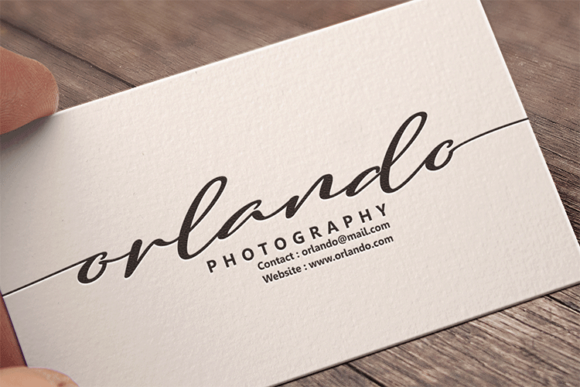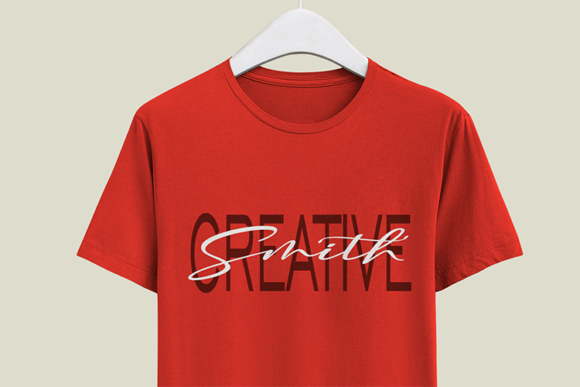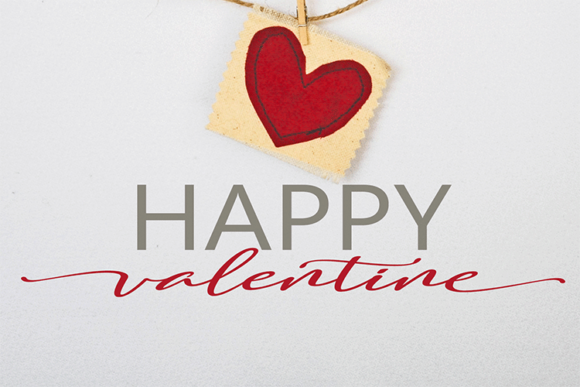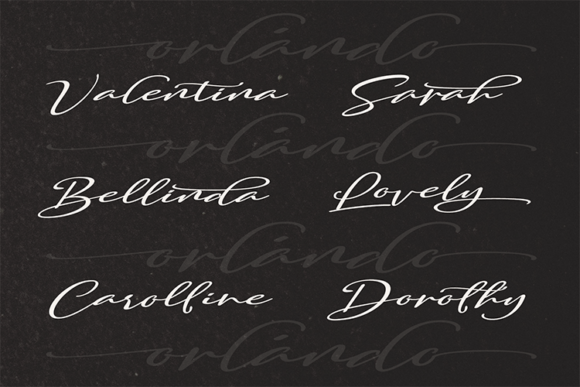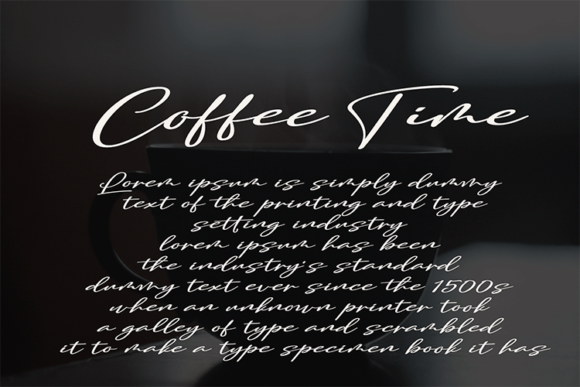
Introduction to Orlando Smith Font
Have you ever been stuck on a creative project, staring blankly at a blank canvas, desperately searching for the perfect design element to bring it to life? For designers, this moment of uncertainty is all too familiar. But what if you could add a touch of elegance and sophistication to your work with just one click? Enter the Orlando Smith Font, a luxurious script font that’s sure to elevate your designs and leave a lasting impression.
As a valuable resource for designers, the Orlando Smith Font is a game-changer for those looking to add a high-quality, unique touch to their work. With its classic style and friendly feel, this font is perfect for a wide range of creative projects, from wedding invitations to business logos. And the best part? It’s available for free download, making it an accessible design resource for designers of all levels.
- Features a unique blend of modern and vintage elements, setting it apart from other fonts in its class.
- Perfect for use in digital and print projects, including logos, posters, and other creative endeavors.
Honest Review: Orlando Smith Font
I recently came across the Orlando Smith Font while searching for a unique design resource for a creative project. I was pleasantly surprised to find that this font is not only high quality but also available for a free download.
What works well: ✨ The Orlando Smith Font has a very distinct and modern design aesthetic that would be perfect for any project that requires a touch of sophistication. The font is highly legible, making it easy to read even at smaller font sizes. The transparent background option is also a great feature that allows for seamless integration with any design element.
Limitations: ⚠️ While the Orlando Smith Font is a great addition to any designer’s toolkit, I did notice that it may not be the best choice for projects that require a more rustic or vintage feel. Additionally, the font may not be as customizable as some other fonts in its class.
Overall, I’m really impressed with the Orlando Smith Font and would definitely recommend it to fellow designers. It’s a great free download that can add a lot of value to any creative project.
- Unique and modern design aesthetic
- Highly legible
Getting the Most Out of Orlando Smith Font
To get the most out of the Orlando Smith Font, use it in combination with a transparent background to create a clean and modern design. You can also experiment with different font sizes, colors, and styles to achieve a unique look.
The Orlando Smith Font is ideal for creative projects, such as brochures, flyers, and business cards. Its high-quality design and transparent background make it a popular choice for designers and non-designers alike.